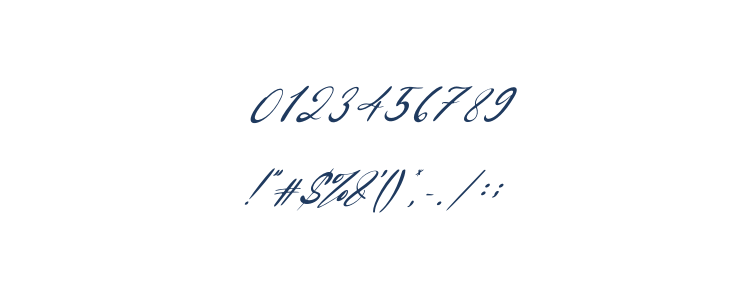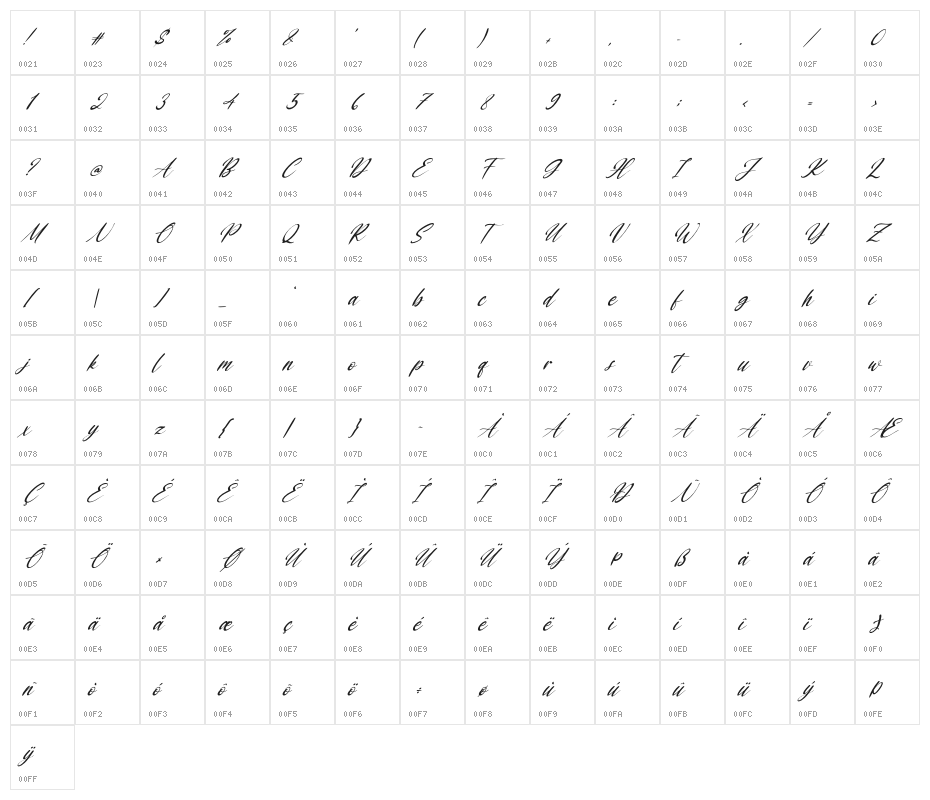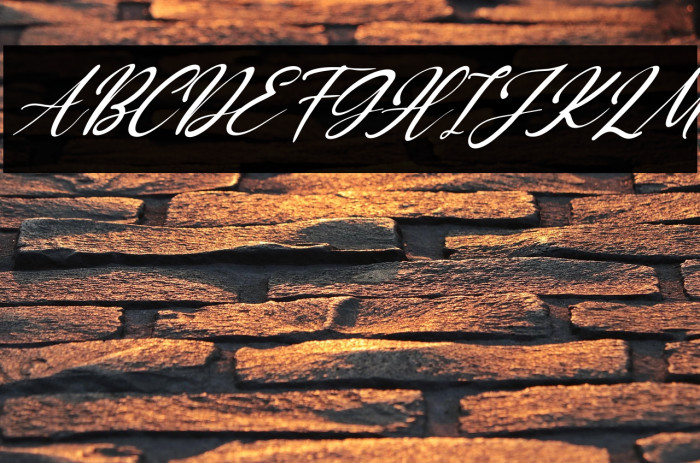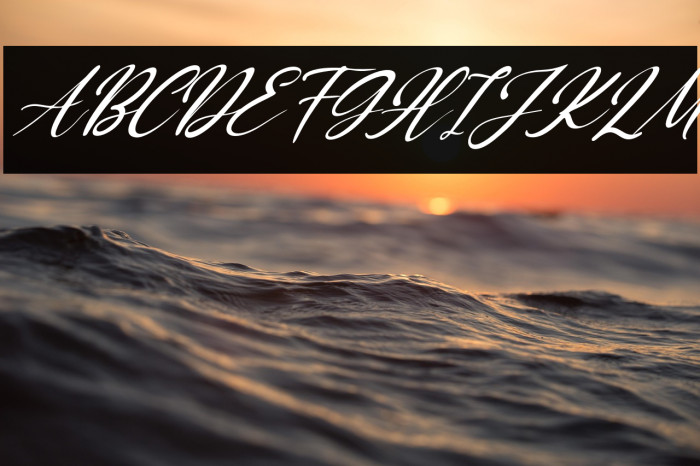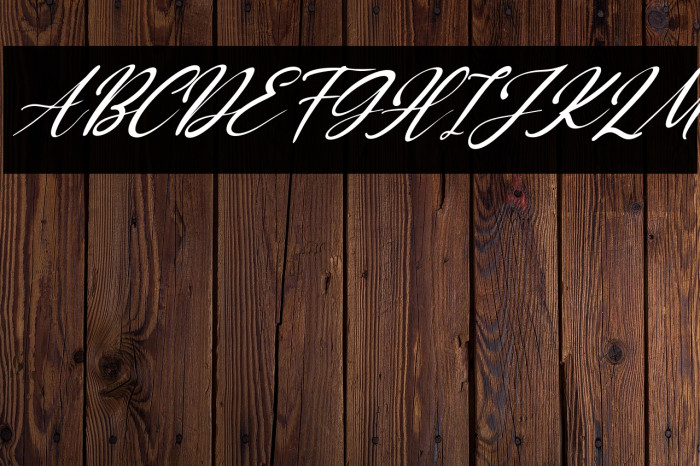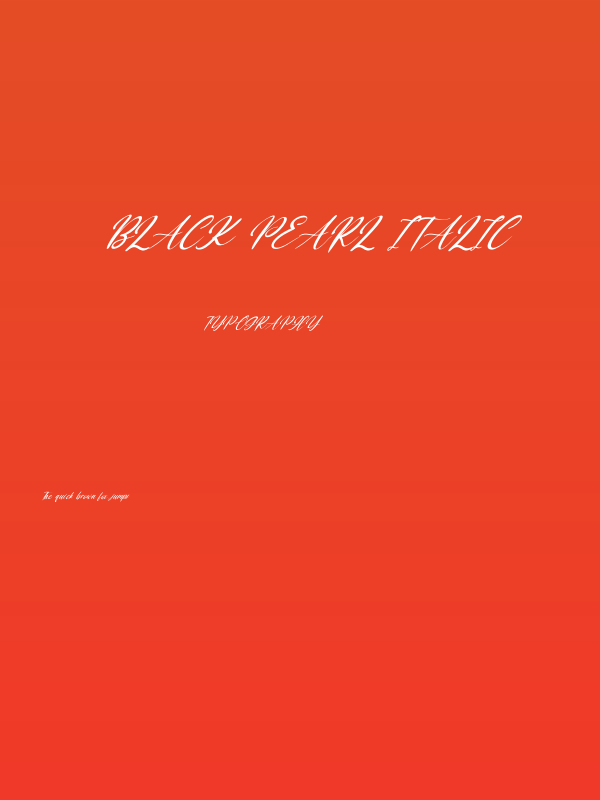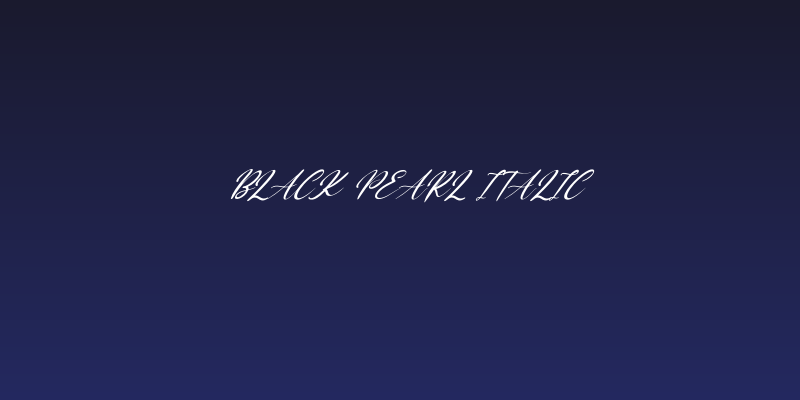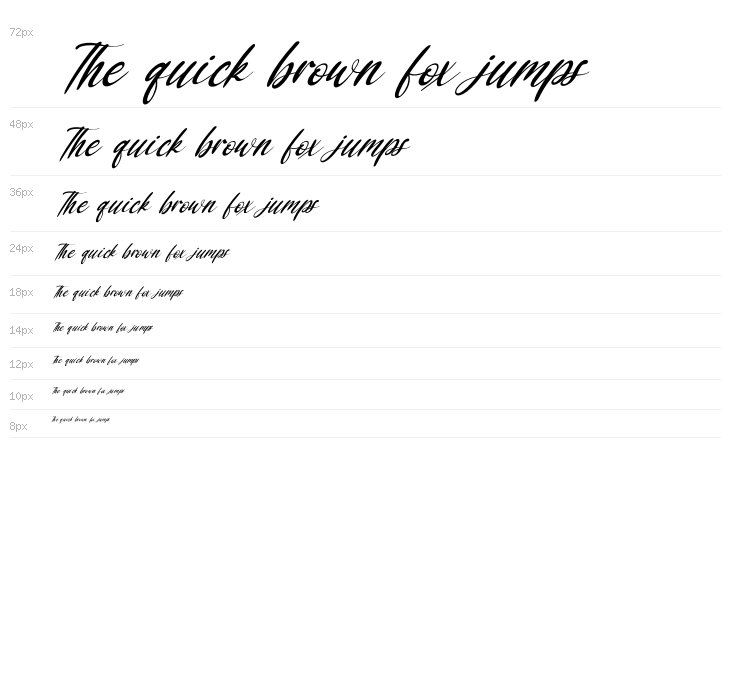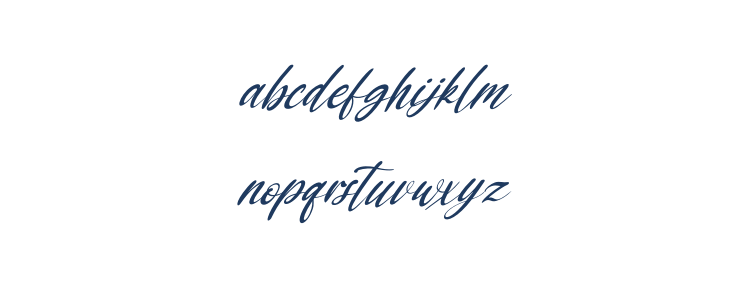
Black Pearl Italic Font
Black Pearl Italic Description
This elegant script font features a flowing, cursive style with a distinct italic slant, giving it a sense of movement and grace. The characters are intricately designed with smooth, sweeping curves and delicate strokes, creating a sophisticated and artistic appearance. The uppercase letters are bold and prominent, while the lowercase letters maintain a consistent flow, enhancing readability. The numerals and special characters are crafted with the same attention to detail, ensuring a cohesive look across all text. This font exudes a classic yet modern charm, making it suitable for a variety of creative applications.
| Overall Style | Elegant, Artistic |
| Proposed Projects | Ideal for wedding invitations, elegant branding, greeting cards, and artistic projects. |